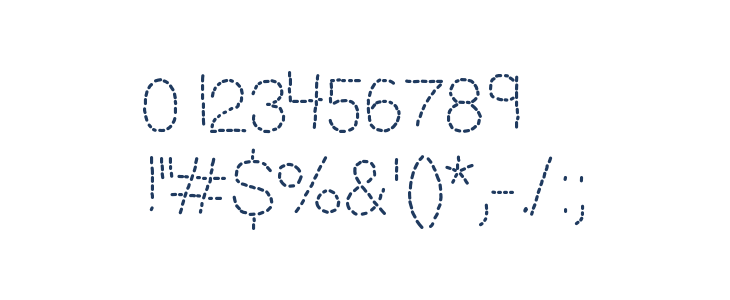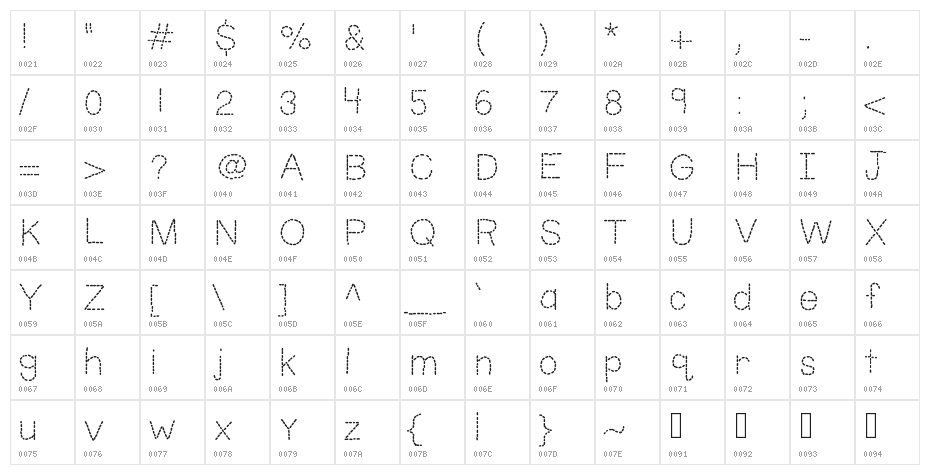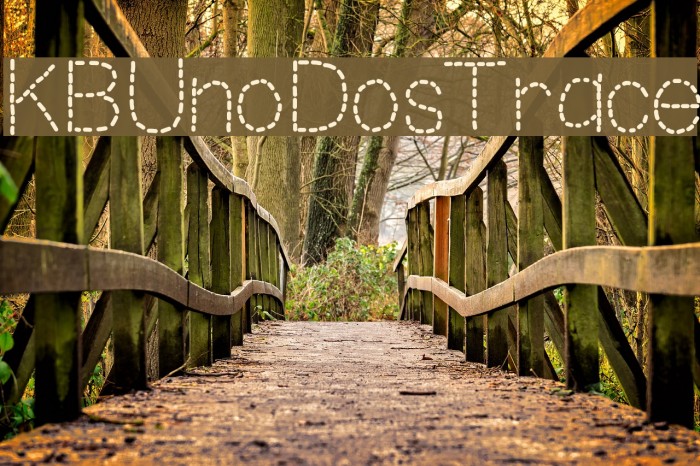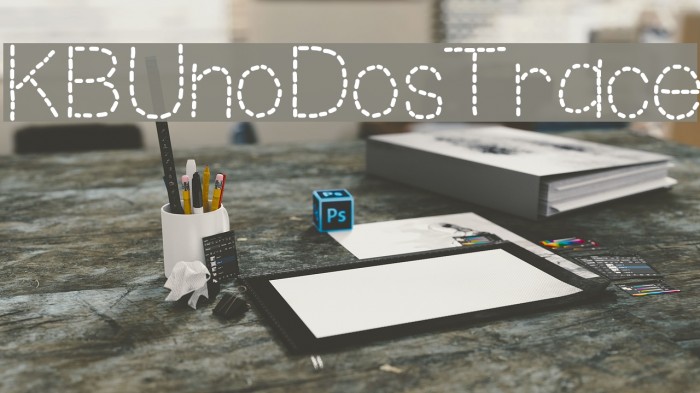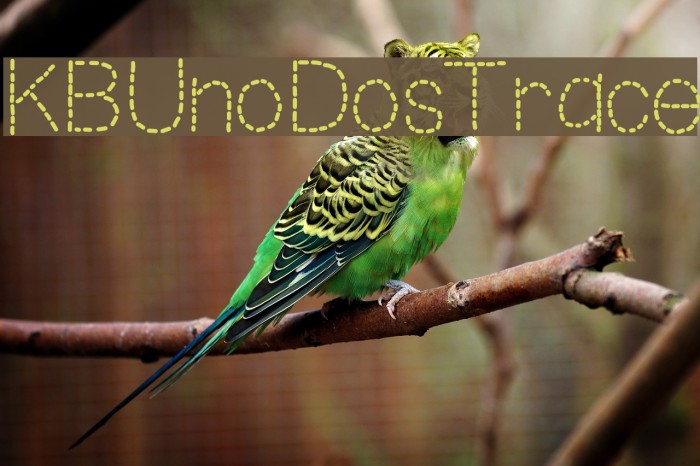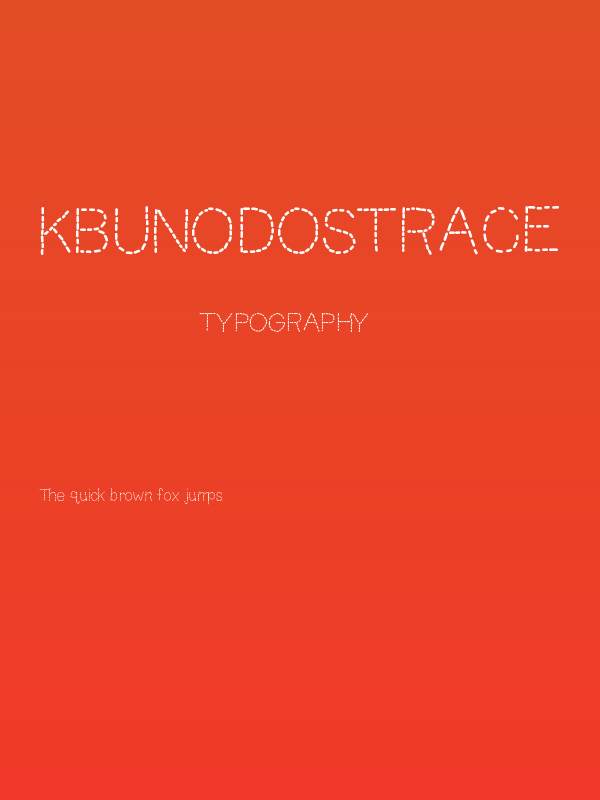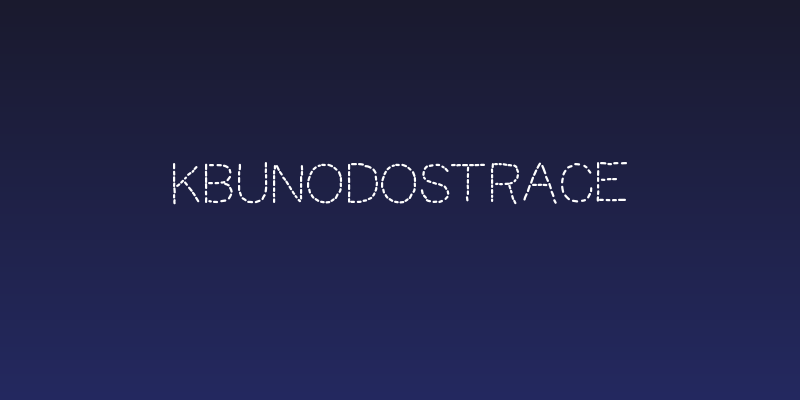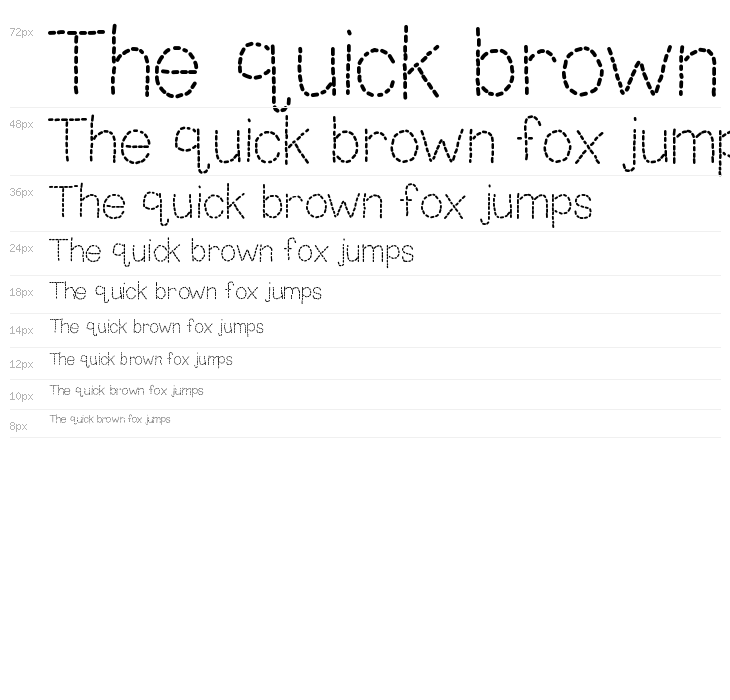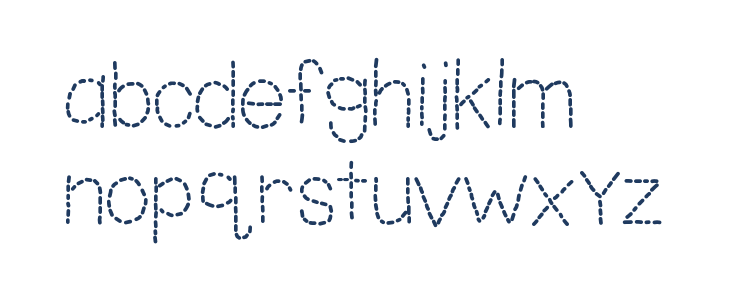
KBUnoDosTrace Font
KBUnoDosTrace Description
This font features a unique dotted line style, giving it a playful and informal appearance. Each character is composed of evenly spaced dots, creating a sense of movement and rhythm. The uppercase and lowercase letters maintain a consistent height and width, ensuring readability. The numbers and special characters follow the same dotted pattern, providing a cohesive look across all glyphs. This font is ideal for projects that require a fun and approachable aesthetic, such as children's books, educational materials, or playful branding.
| Proposed Projects | Ideal for children's books, educational materials, playful branding, and creative invitations. |